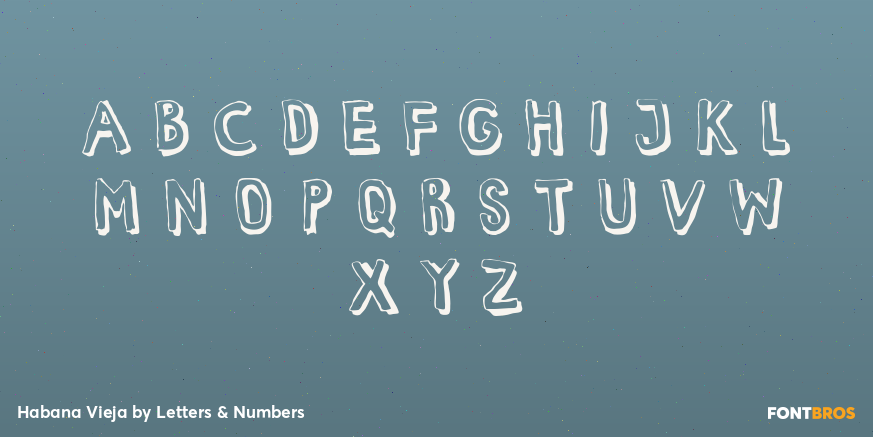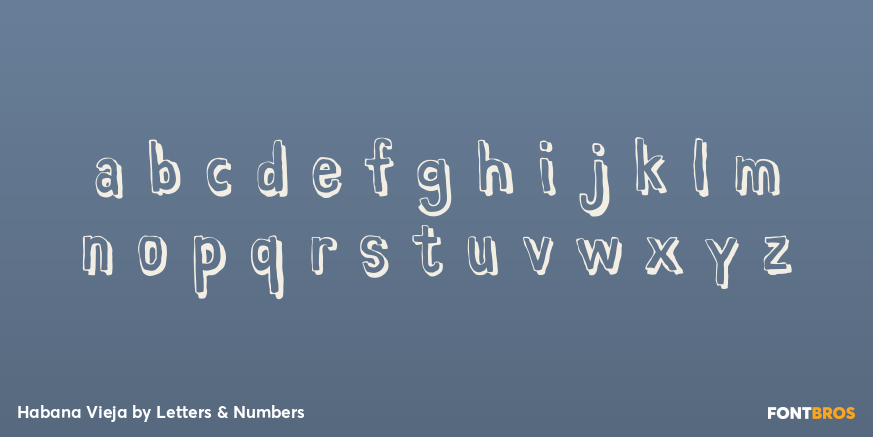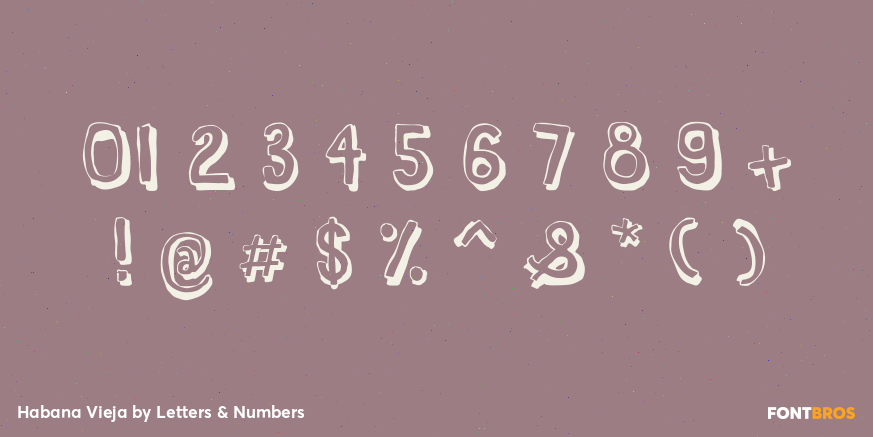
Habana Vieja
Font Family by Letters & Numbers
Habana Vieja is a 3D font inspired by hand-painted signage in Havana's Old Town. Based on a sans-serif, bold font, it will work well for headings.
Habana Vieja is extended, containing West European diacritics, making it suitable for multilingual environments and publications.